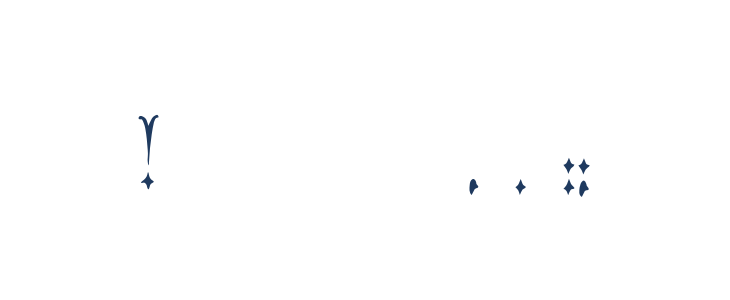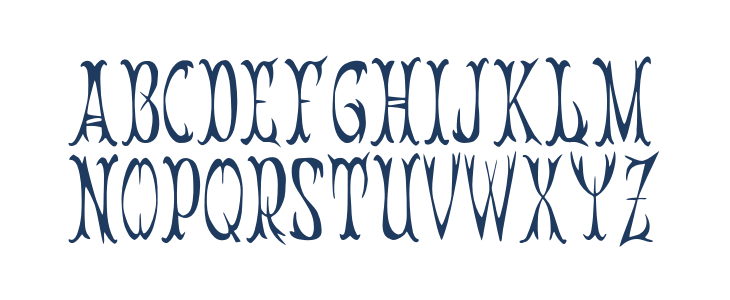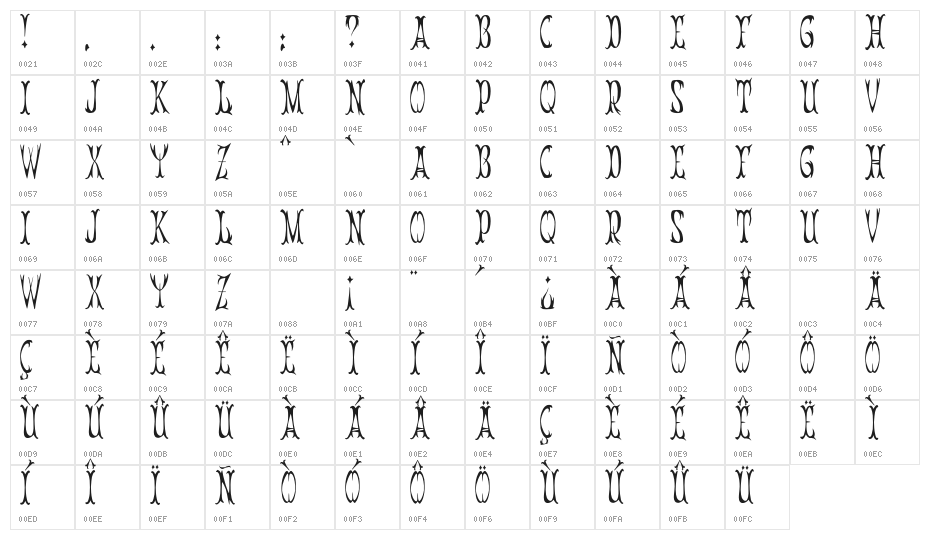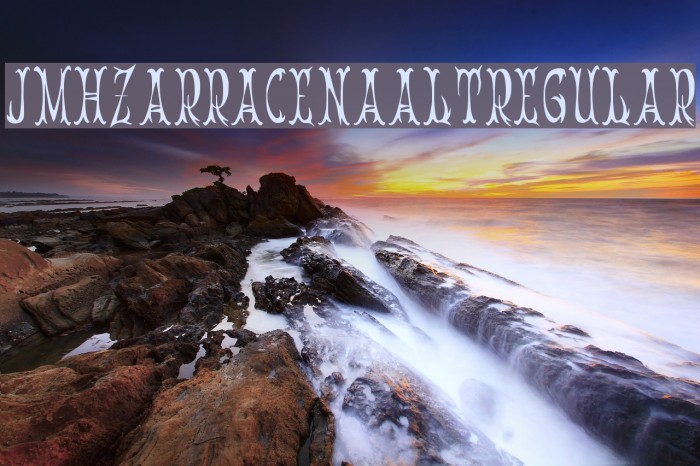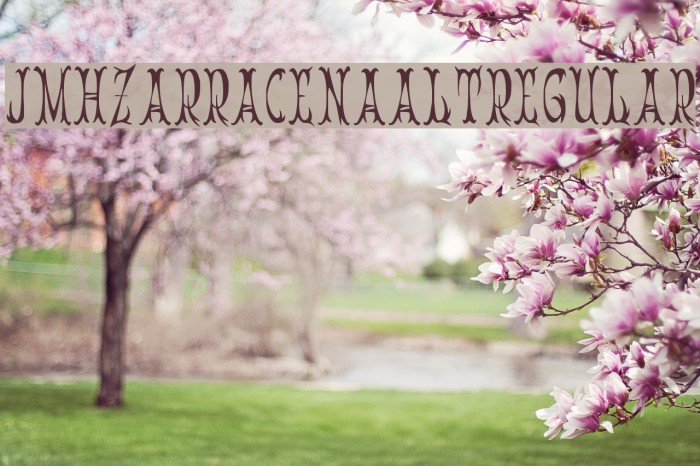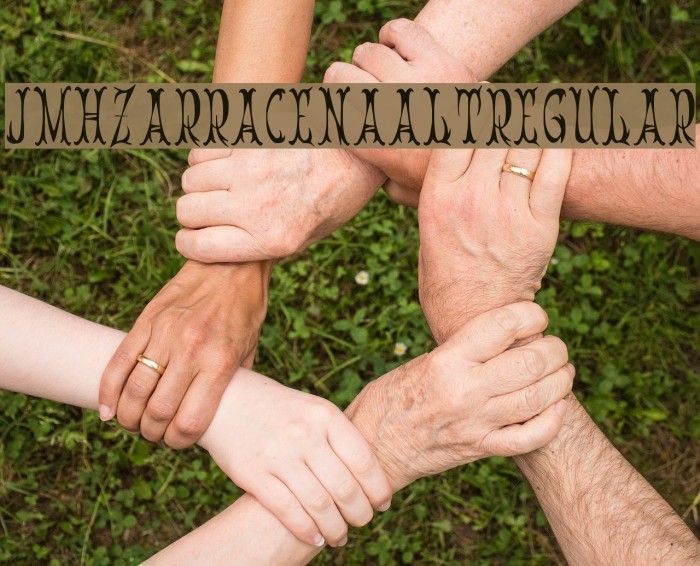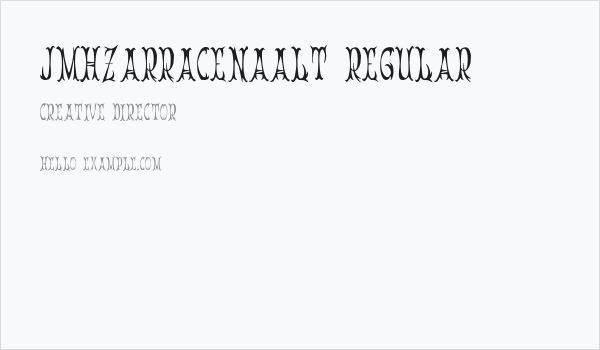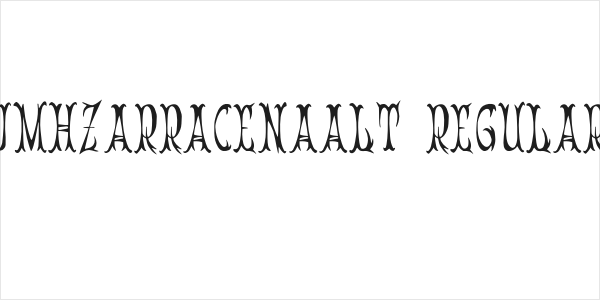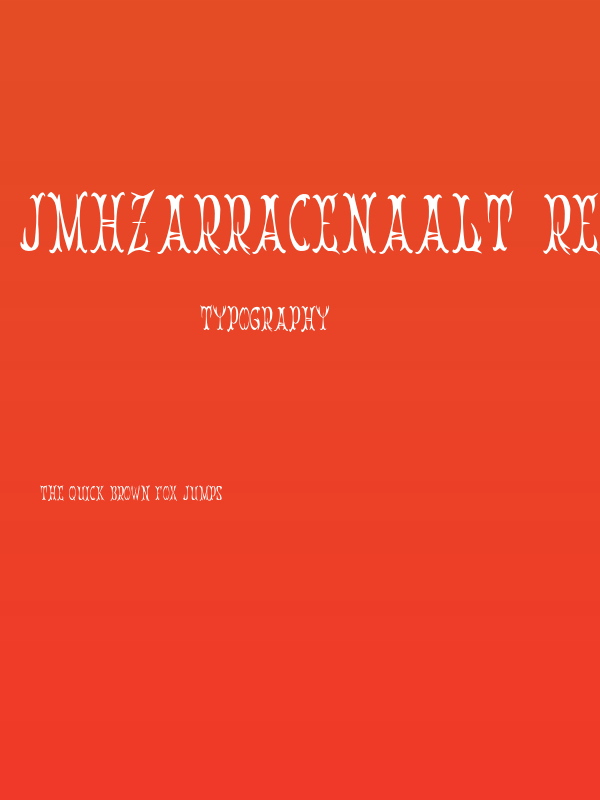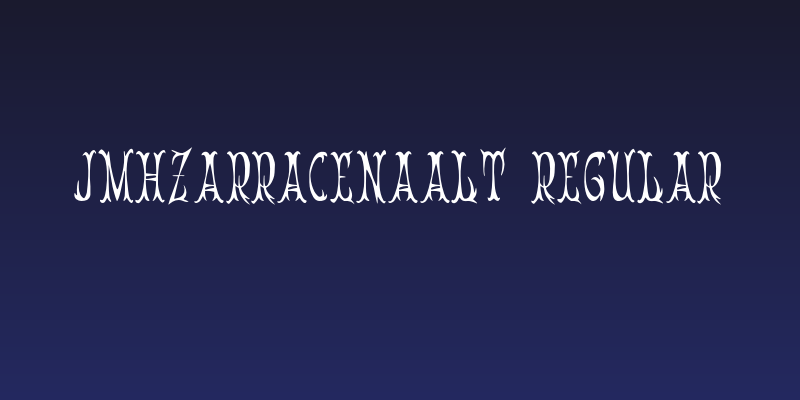
JMHZarracenaAlt-Regular Font
JMHZarracenaAlt-Regular Description
This font features a highly decorative and ornate style, characterized by its sharp, pointed serifs and dramatic curves. The uppercase letters exhibit a unique flair, with exaggerated strokes that create a sense of movement and elegance. The overall design is reminiscent of vintage or gothic typography, making it suitable for projects that require a bold and artistic touch. The intricate detailing in each character adds a layer of sophistication, making it stand out in any design context.
| Proposed Projects | Ideal for use in branding, poster design, book covers, and any project that requires a vintage or gothic aesthetic. |